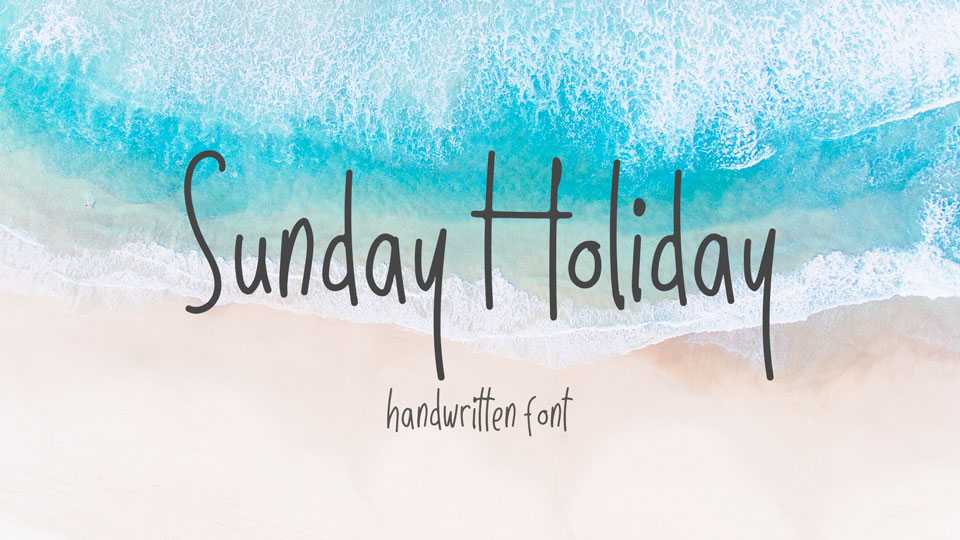
Download Sunday Holiday font, a lovely handwritten script with a free flow and natural casual look. Perfect for craft design, cards, letters, everyday notes, quotes and more.
Designer: semut hitam